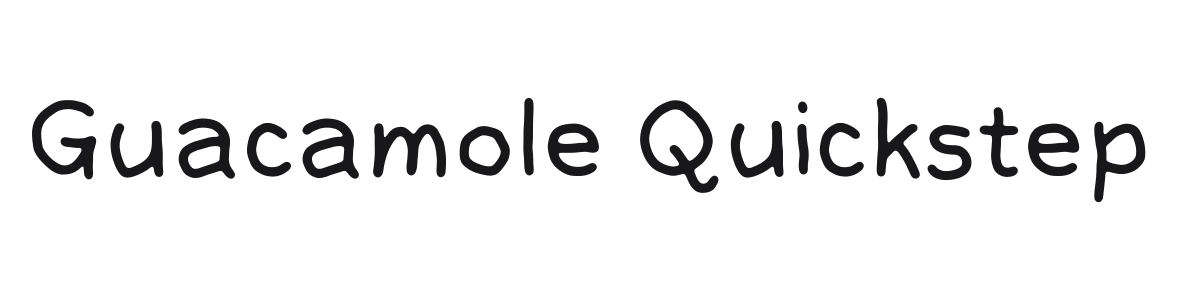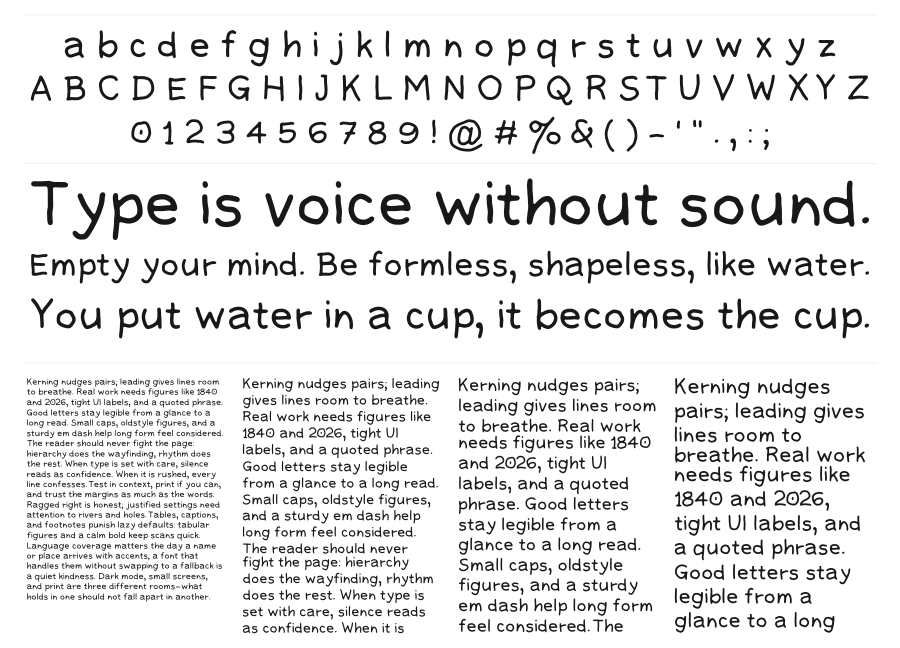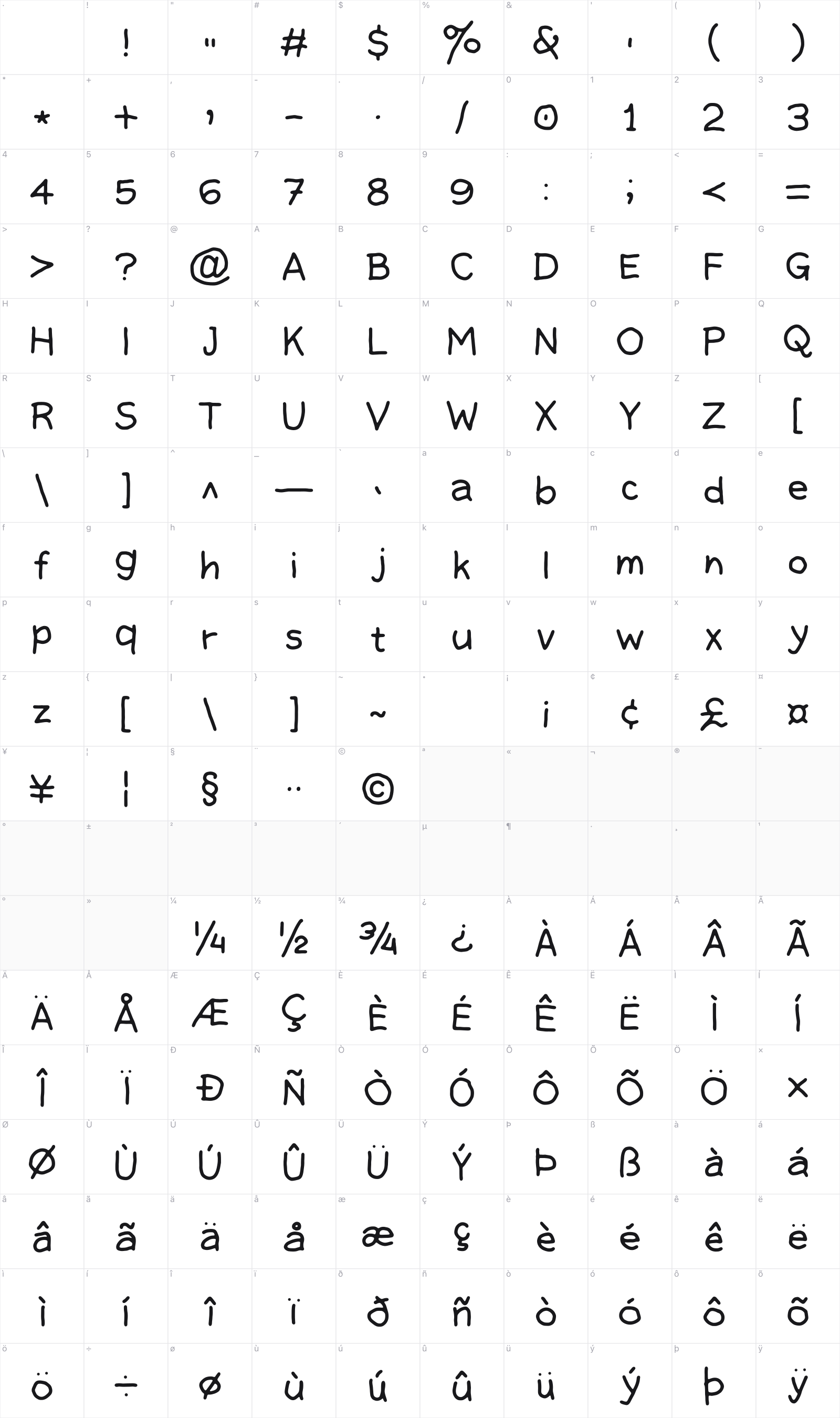
Guacamole Quickstep
Guacamole Quickstep is a casual hand-drawn font by S. John Ross with the warm wobble of a felt-tip marker and gently rounded strokes throughout. Each character carries just enough natural irregularity to feel genuinely handmade without becoming hard to read. It works well anywhere you want a personal, unpretentious touch, from game materials to menus to informal branding.